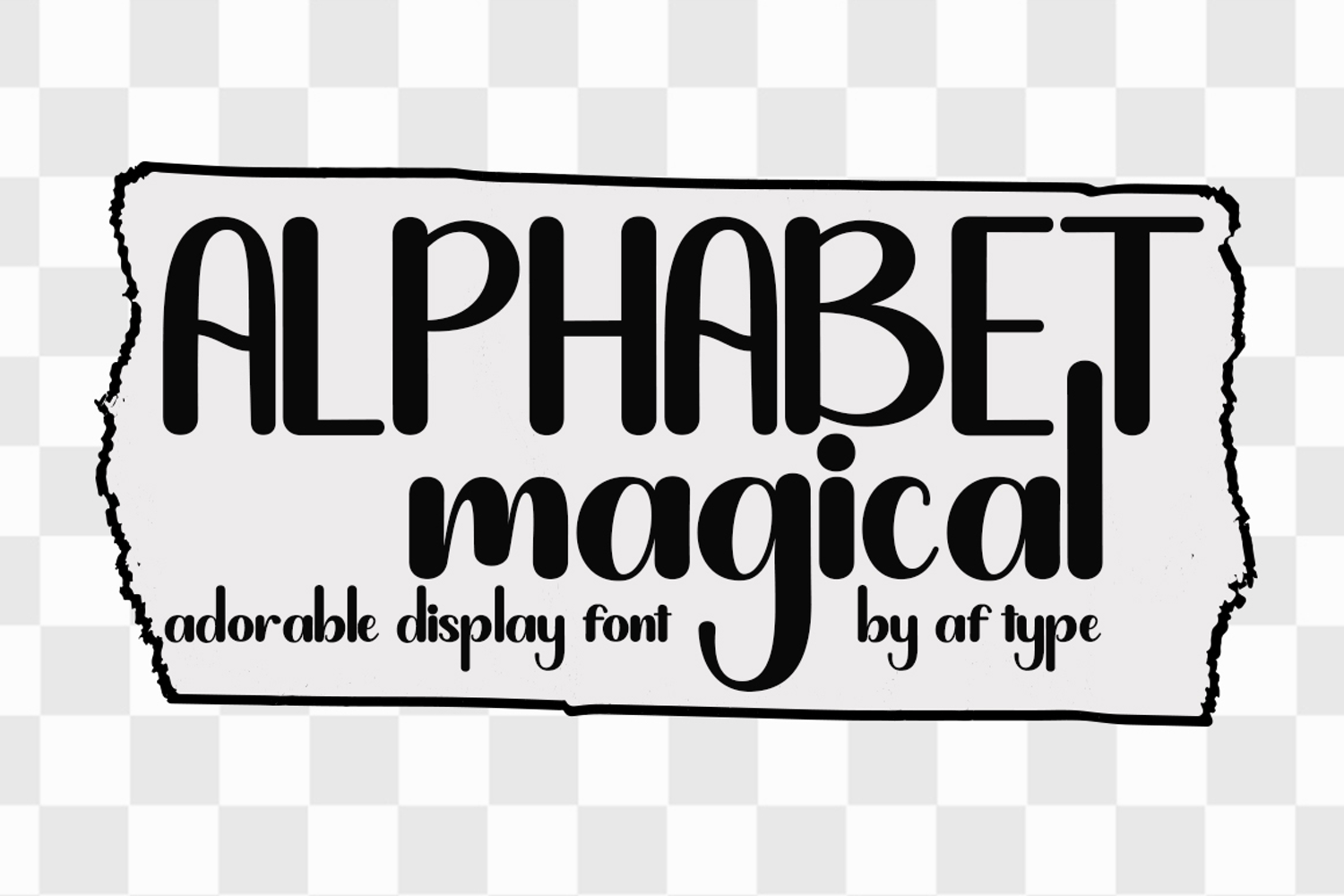
Alphabet Magical
Alphabet Magical is a font that combines playfulness and originality, making it the perfect choice for all your favorite projects, including blog posts, logos, branding, advertisements, invitations, greeting cards, agendas, photo albums, decorations, and more. Add it to your designs and enjoy the results!